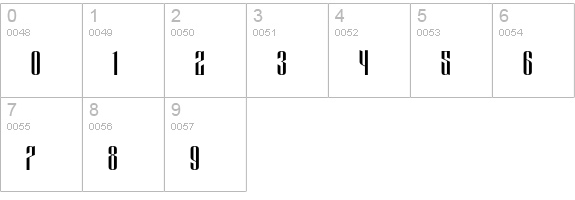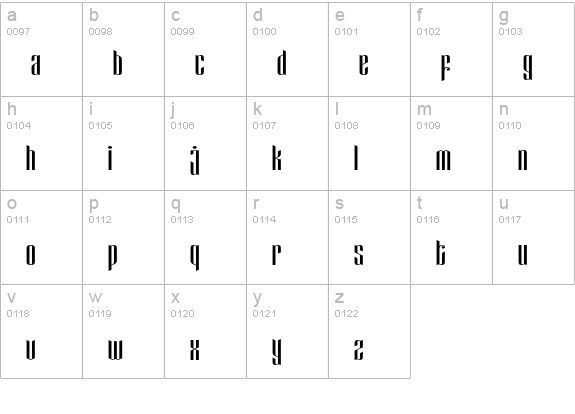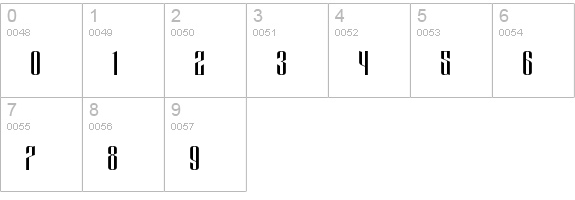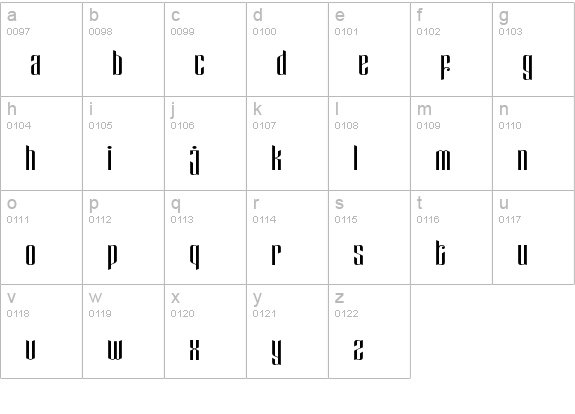
Eveagita Luxury Bold Font Details
Eveagita Luxury Bold is a strong, high-contrast variant in the Eveagita typeface family \xE2\x80\x94 well suited to headlines, attention-grabbing titles, and strong calls-to-action.
Eveagita Luxury Bold font exudes elegance and sophistication with its striking design and luxurious feel. This font is perfect for creating stunning and impactful designs that demand attention. The bold and strong strokes make a powerful statement, while the intricate details add a touch of refinement. And the best part? Eveagita Luxury Bold font is available for free to download at FontsMarket.com. So, whether you're working on a high-end branding project, elegant invitations, or stylish editorial designs, this font is sure to elevate your work to the next level. Unlock the potential of your designs with Eveagita Luxury Bold font and make a lasting impression.